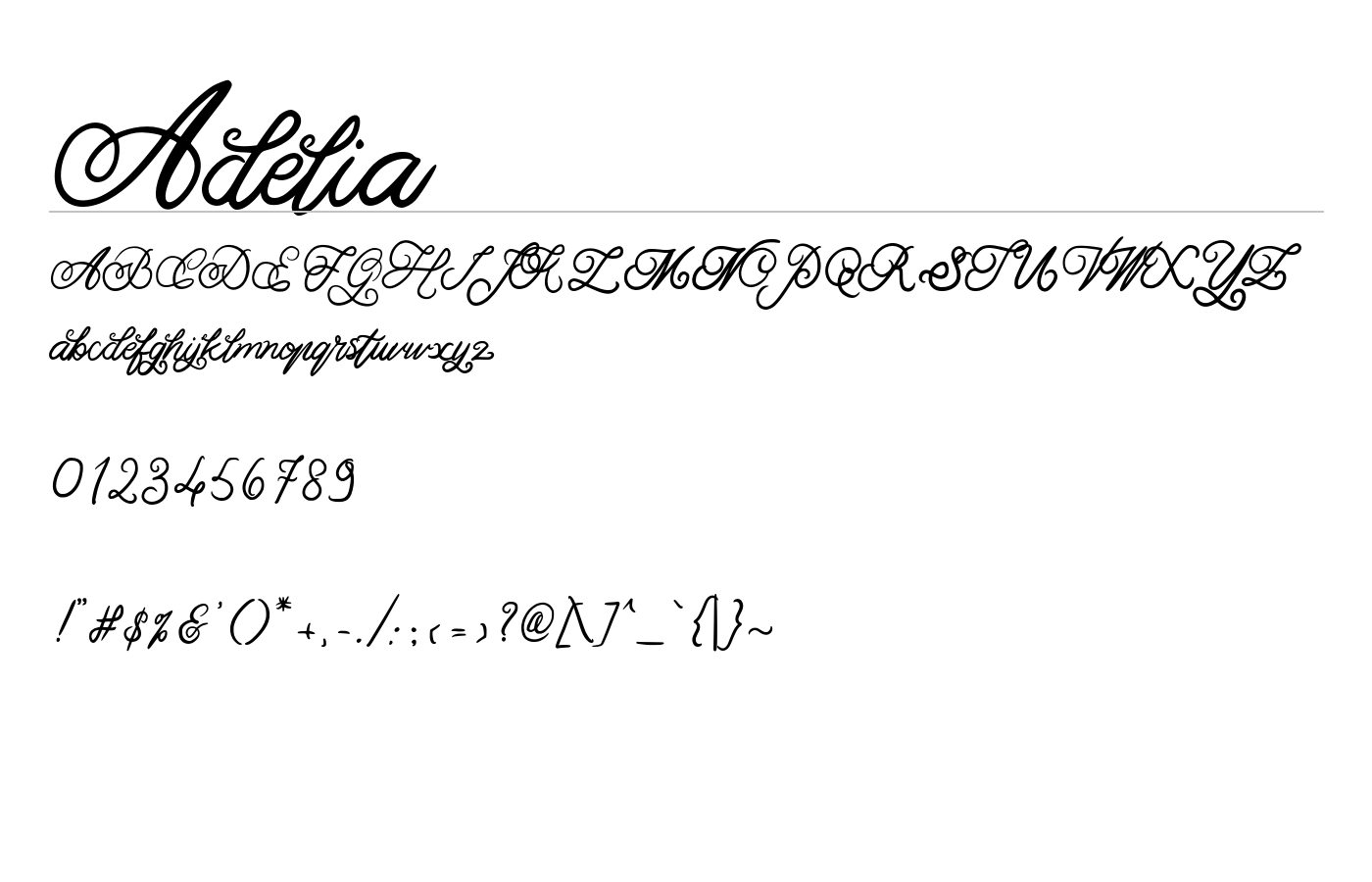
Adelia is an elegant script font with a delicate, flowing appearance that mimics graceful handwriting. Its light weight and high contrast strokes, combined with intricate swashes and loops, give it a luxurious and sophisticated feel, ideal for invitations, branding, and decorative headlines. This font works best when used to convey refinement and charm in fashion, beauty, or upscale event designs.
Adelia Font
About Adelia Font
| Font family | Adelia Font |
| Designer | Vunira Design |